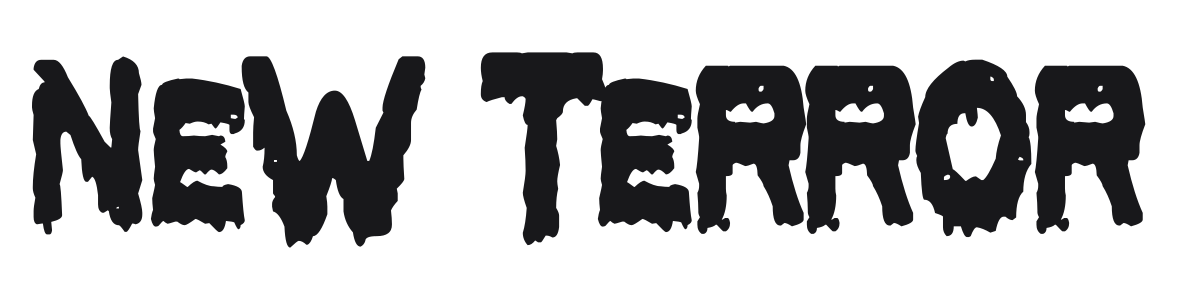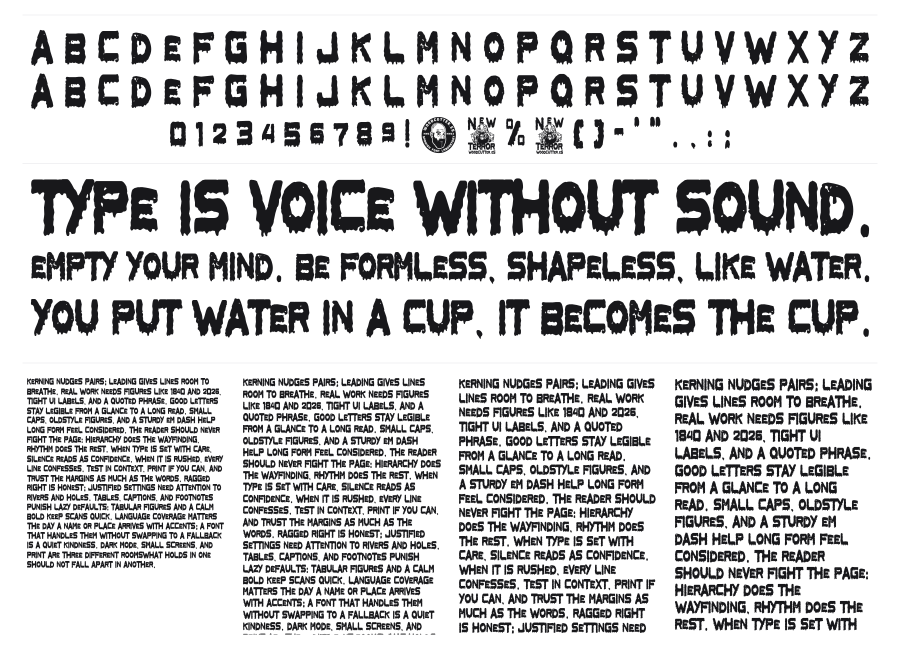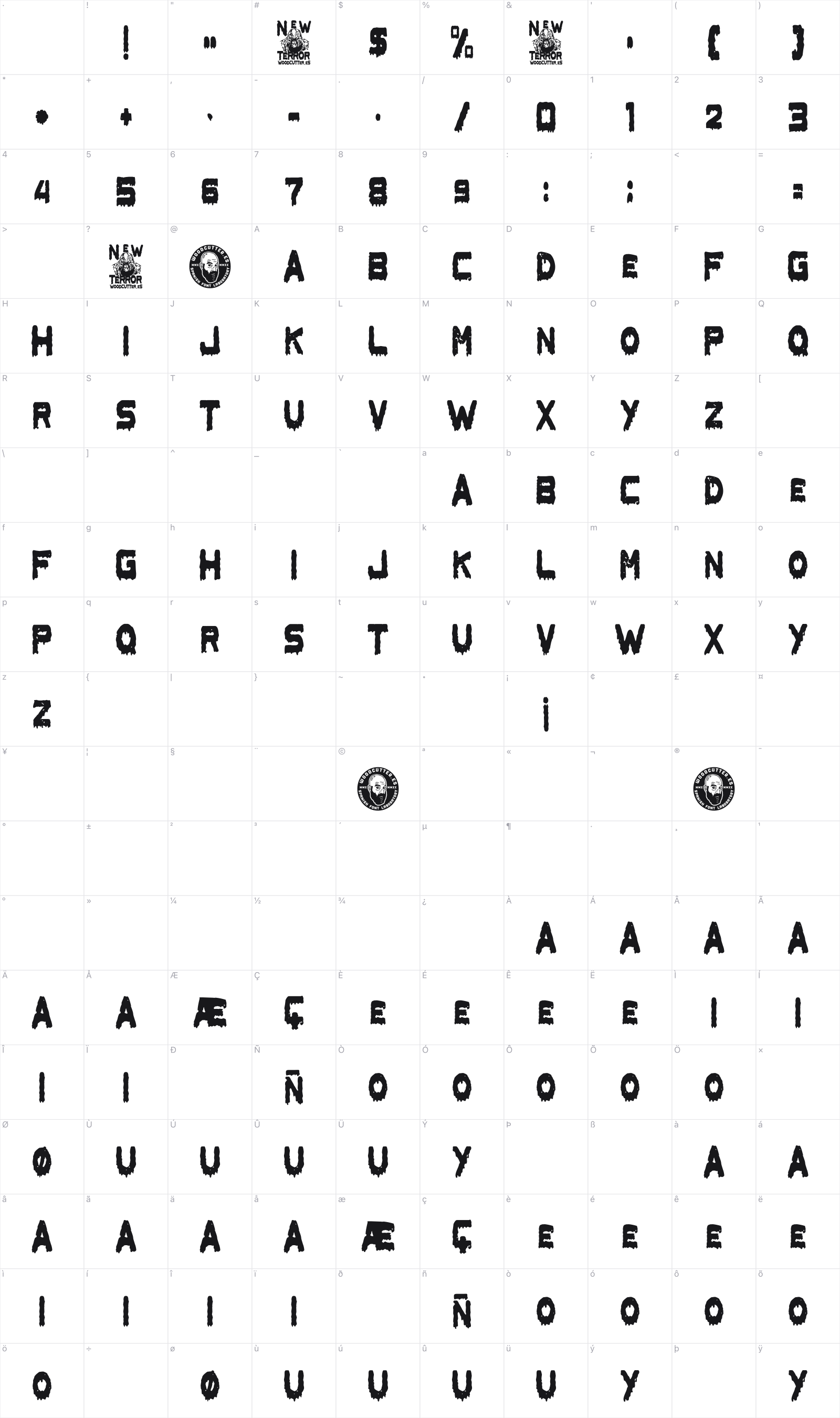
New Terror
New Terror is a heavy horror display font by Woodcutter Manero with thick, bold characters coated in dripping, melting distortion. Every letter looks like it's been dipped in something viscous, with ragged edges and irregular drips that give it a genuinely unsettling texture. A strong choice for horror titles, Halloween projects, and anything that needs to feel dangerous.